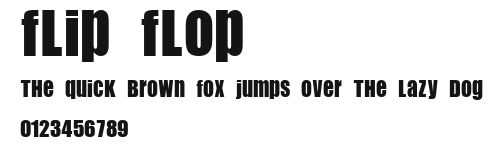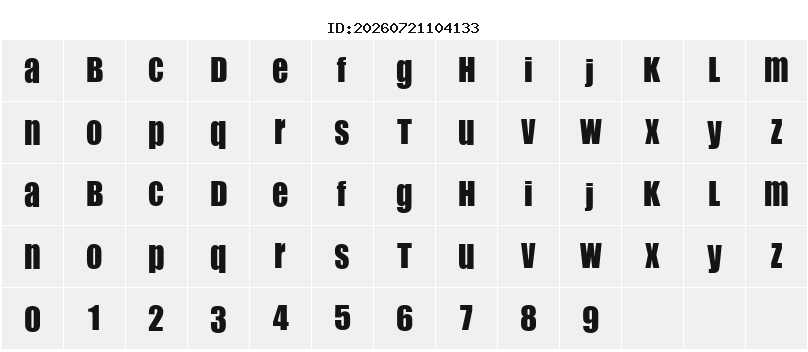
• Font Name: Flip Flop
About Flip Flop.ttf
Flip Flop.ttf is a modern, elegant sans-serif font designed for ultimate readability and visual harmony. Perfect for branding, headlines, web design, and print materials.